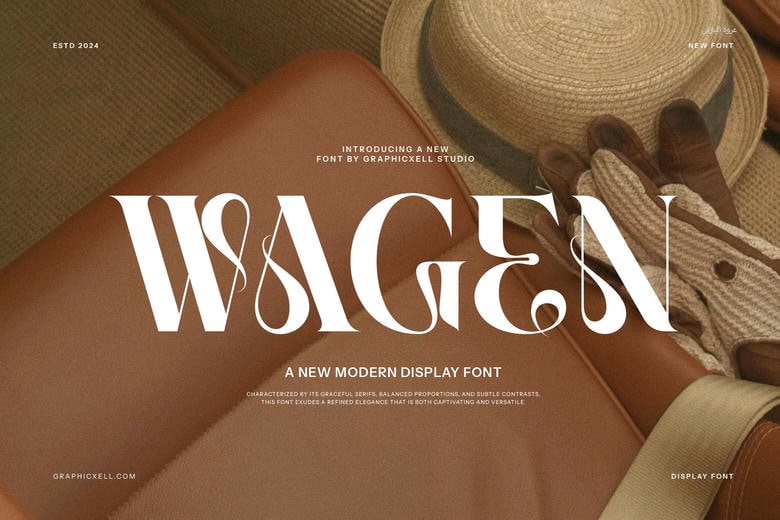
Wagen Font
Wagen is a new type of font serif with high elegance. The first impression in this basic serif typeface is traditional. But the most attraction is on the blunt serifs when counter strokes sweep and turn gently, thus, becoming its signature. They also have many bolded lines nearly in all scenes. Despite the fact that some parts are drawn with thinner lines of stroke there is no remarkably significant difference.
It is clear as the edges of the letters are blunt and rounded instead of sharp. It has the feeling of being designed personally and makes the font suitable for the casual theme. Therefore, we can say that, the Gansky Elegant Serif Font used for sophisticated and stylish product design but for formal trending and casual designs of invitation, T-shirt designing, social media designing, and the other informal designing phase it is the best.
Adding ligature in this font can be helpful to take your design to the next level. In both formal and informal contexts, this serif font will provide you with a better experience more than when used as a plain text.
Wagen Serif Font